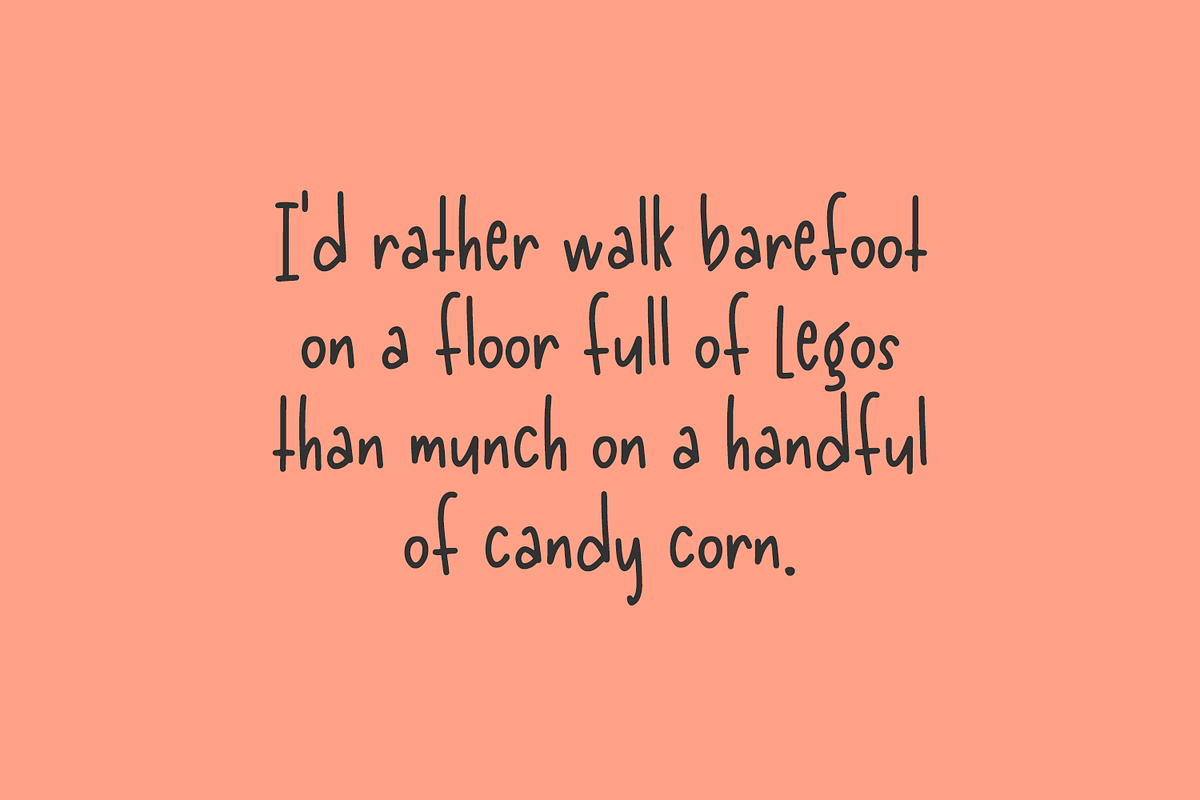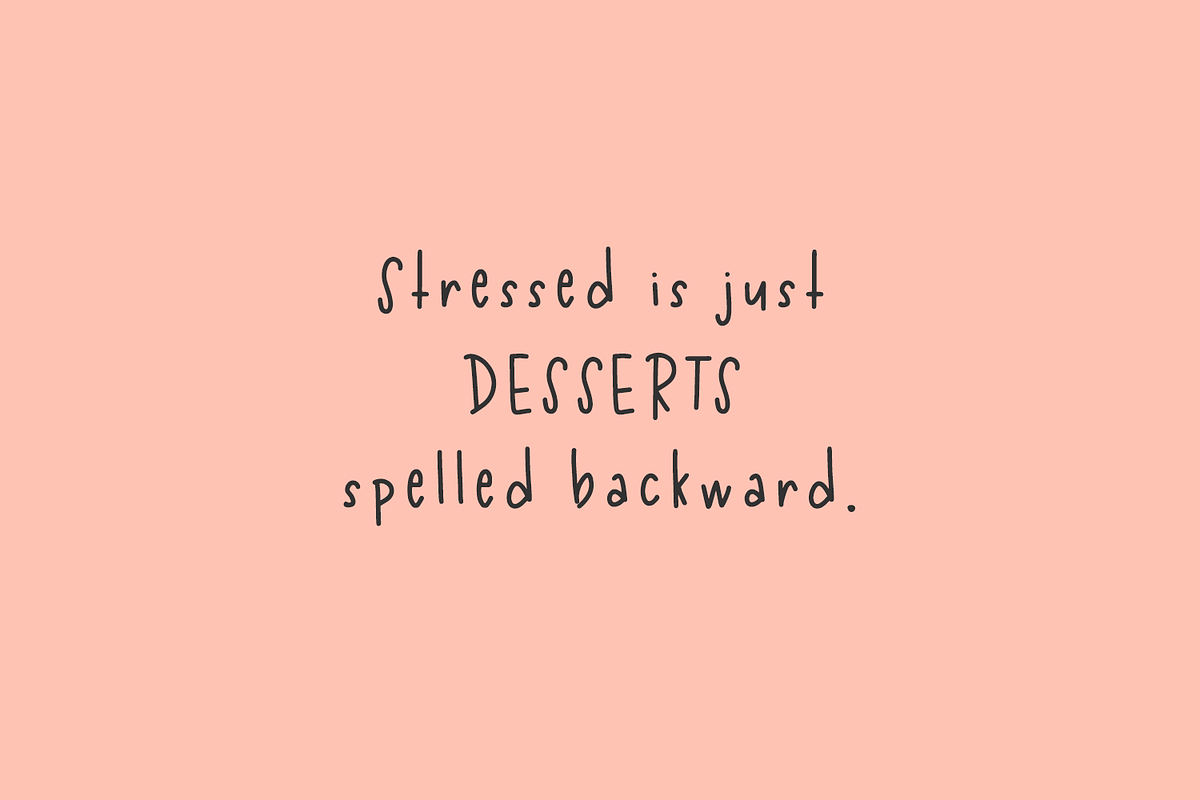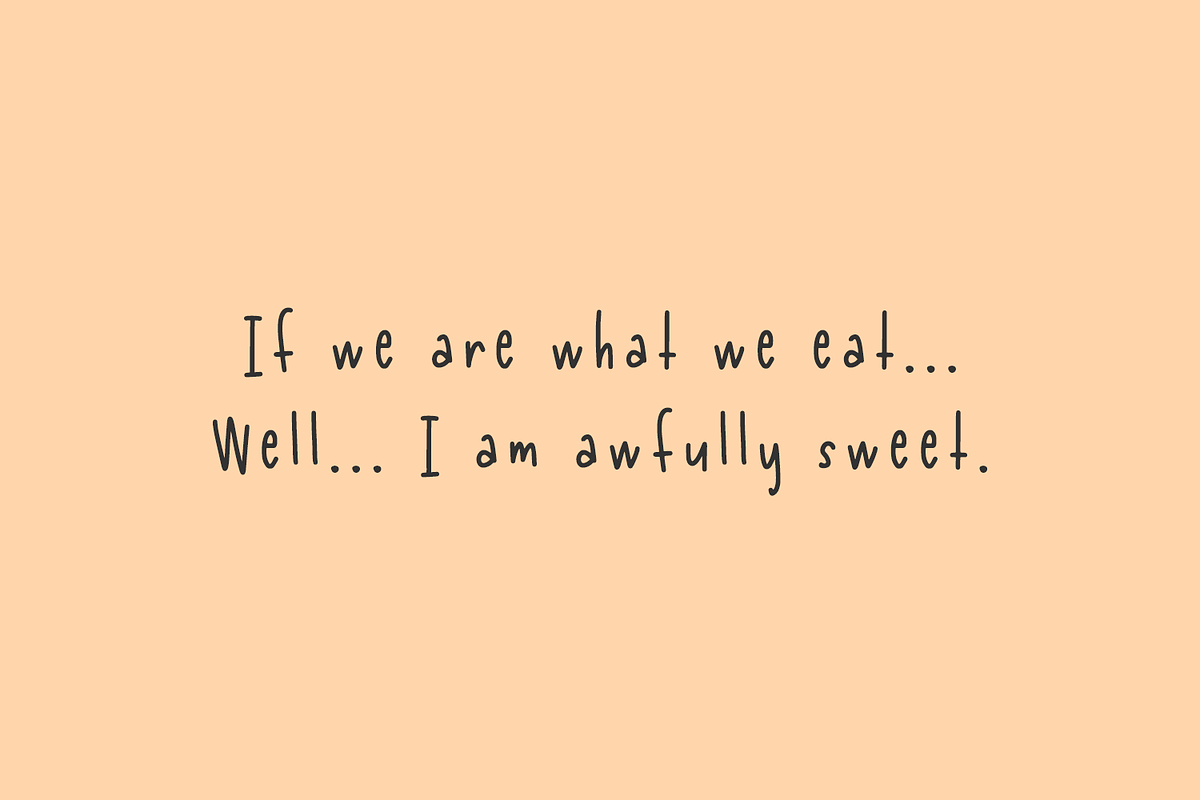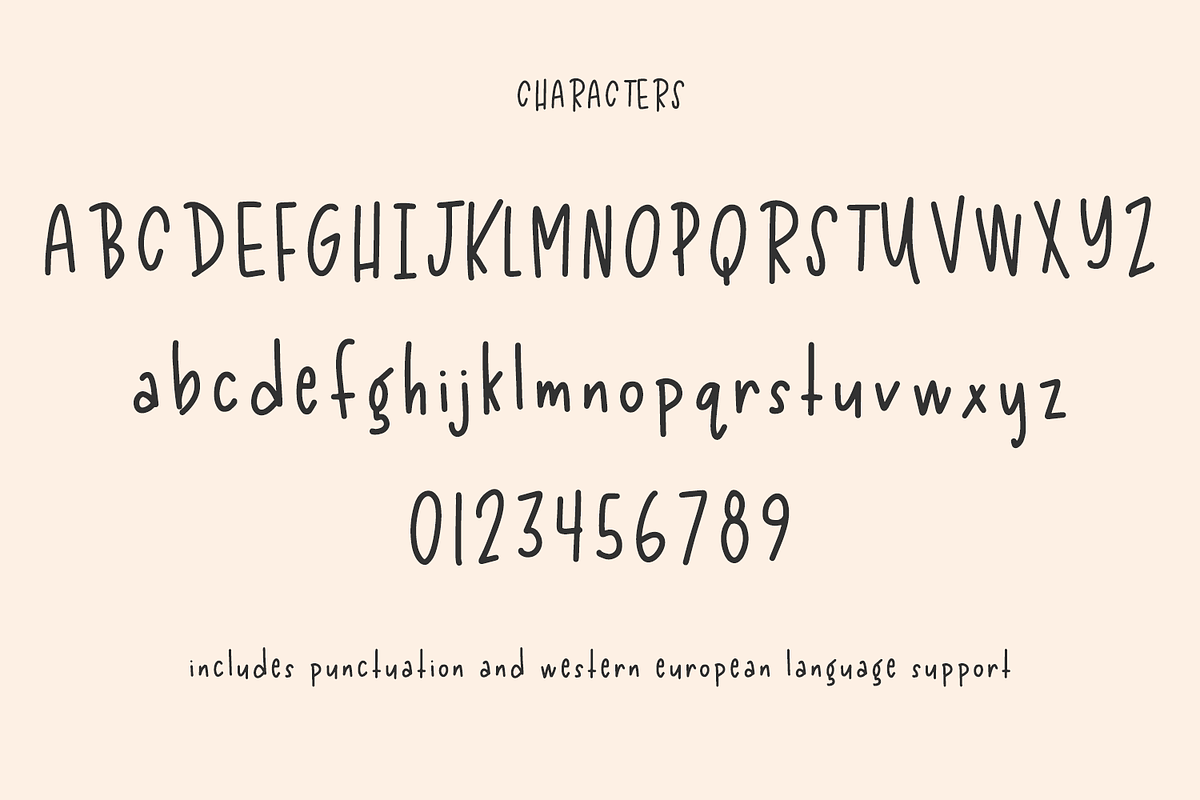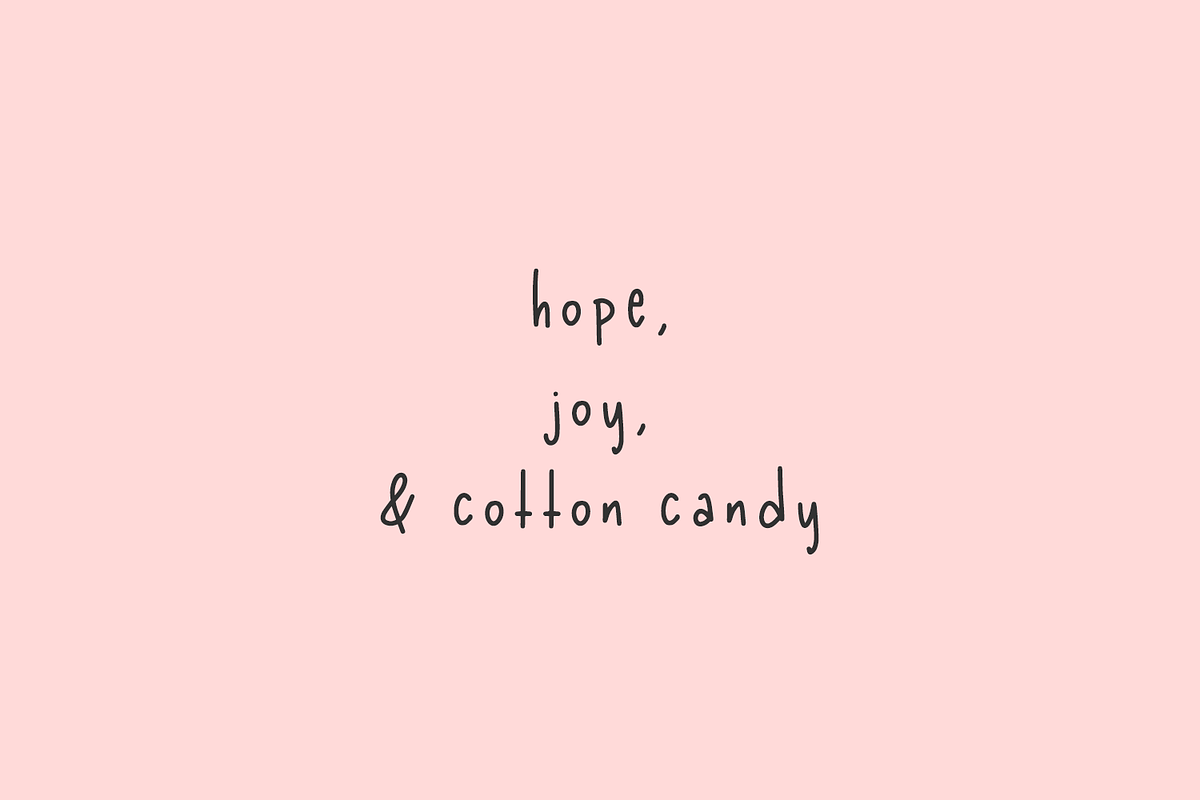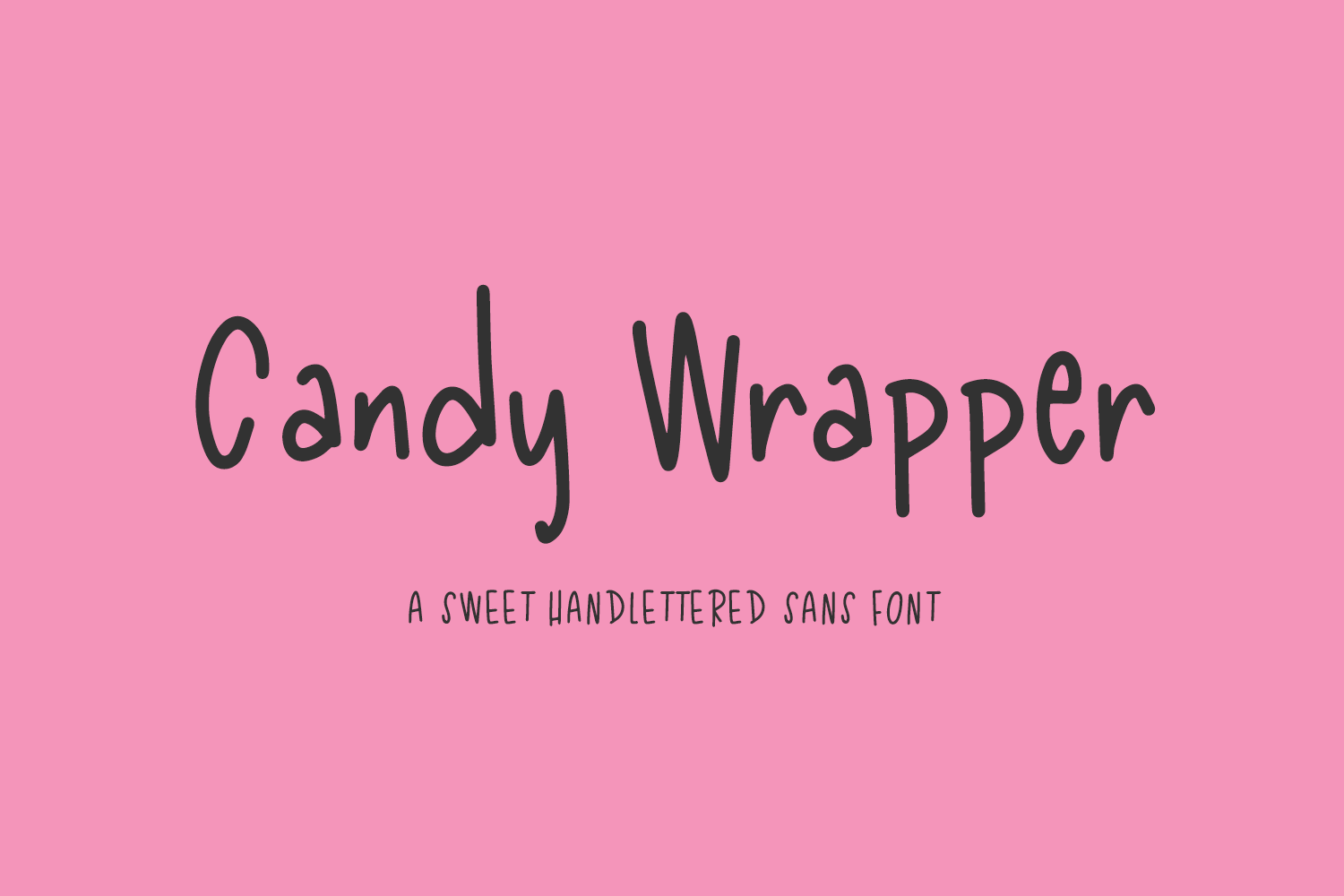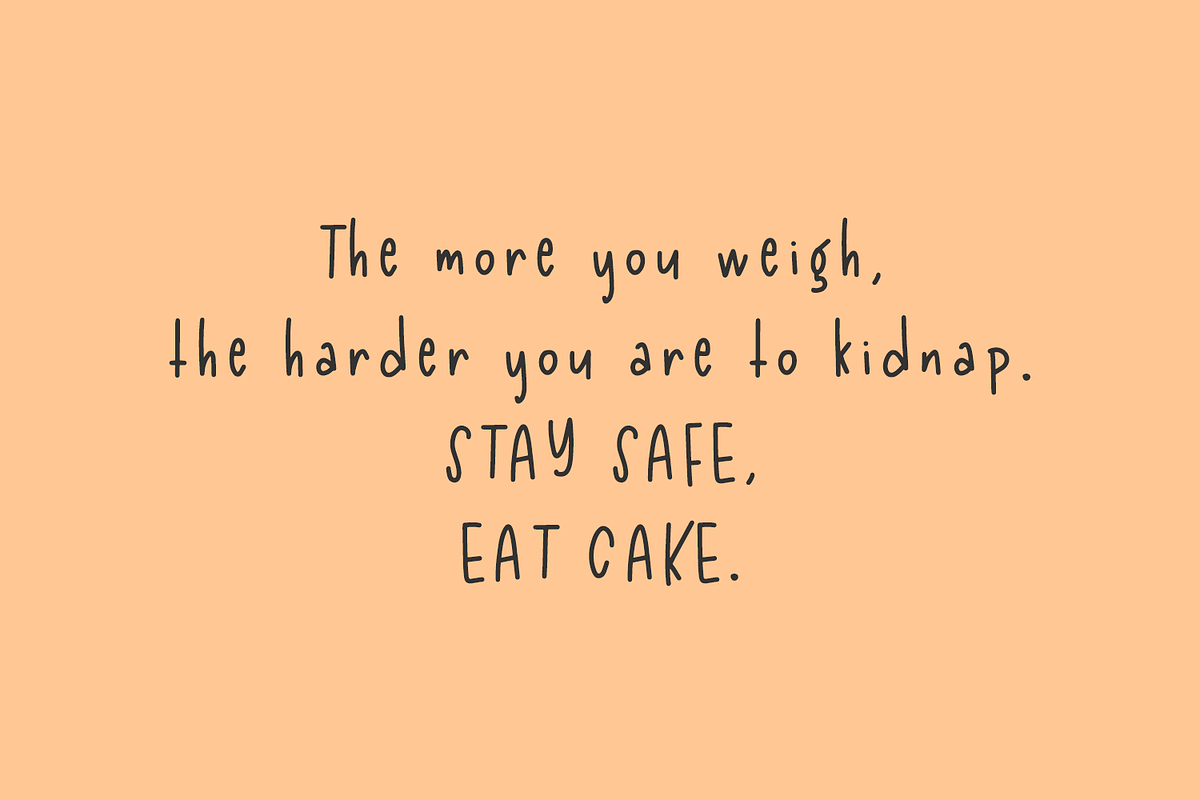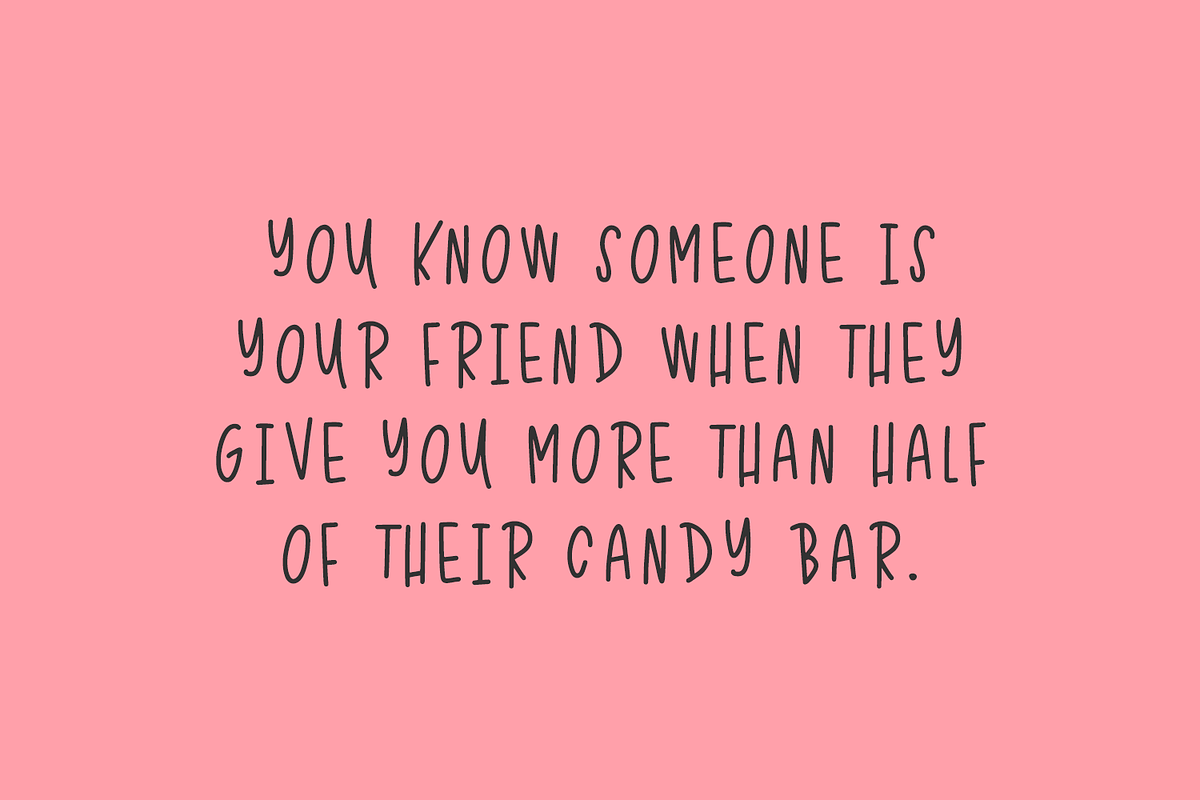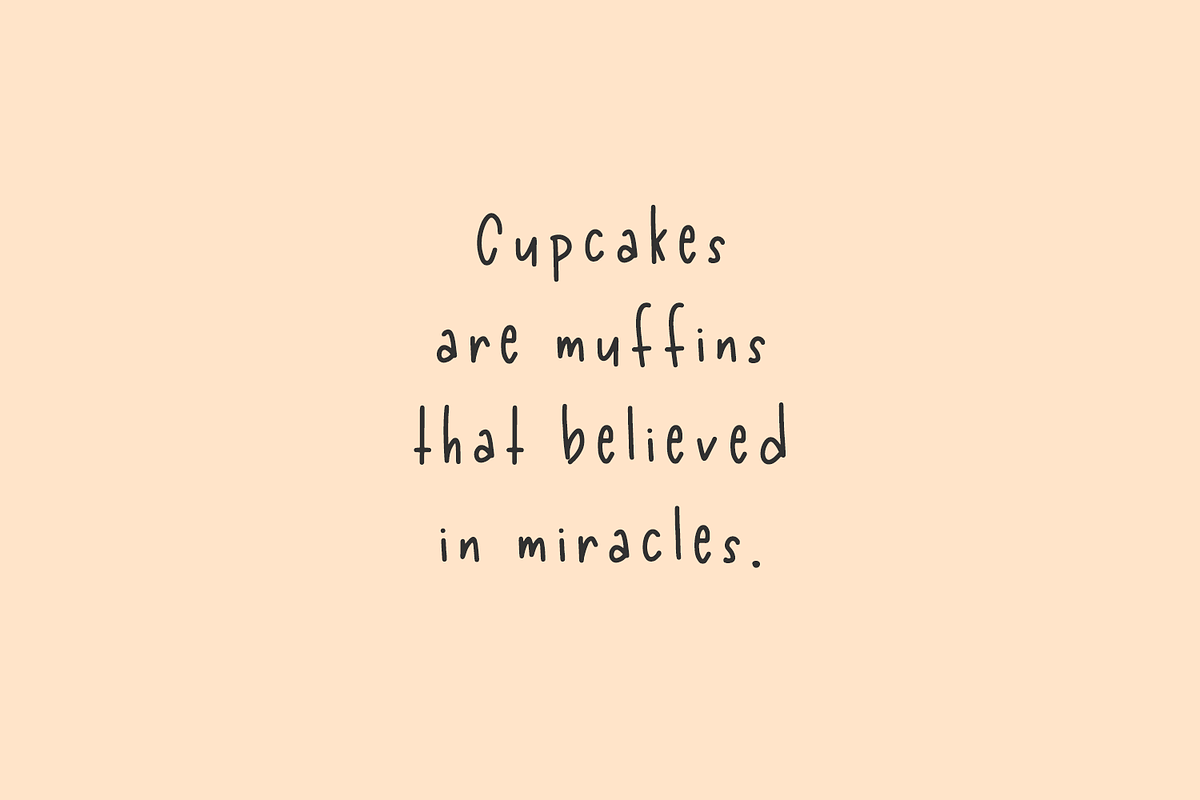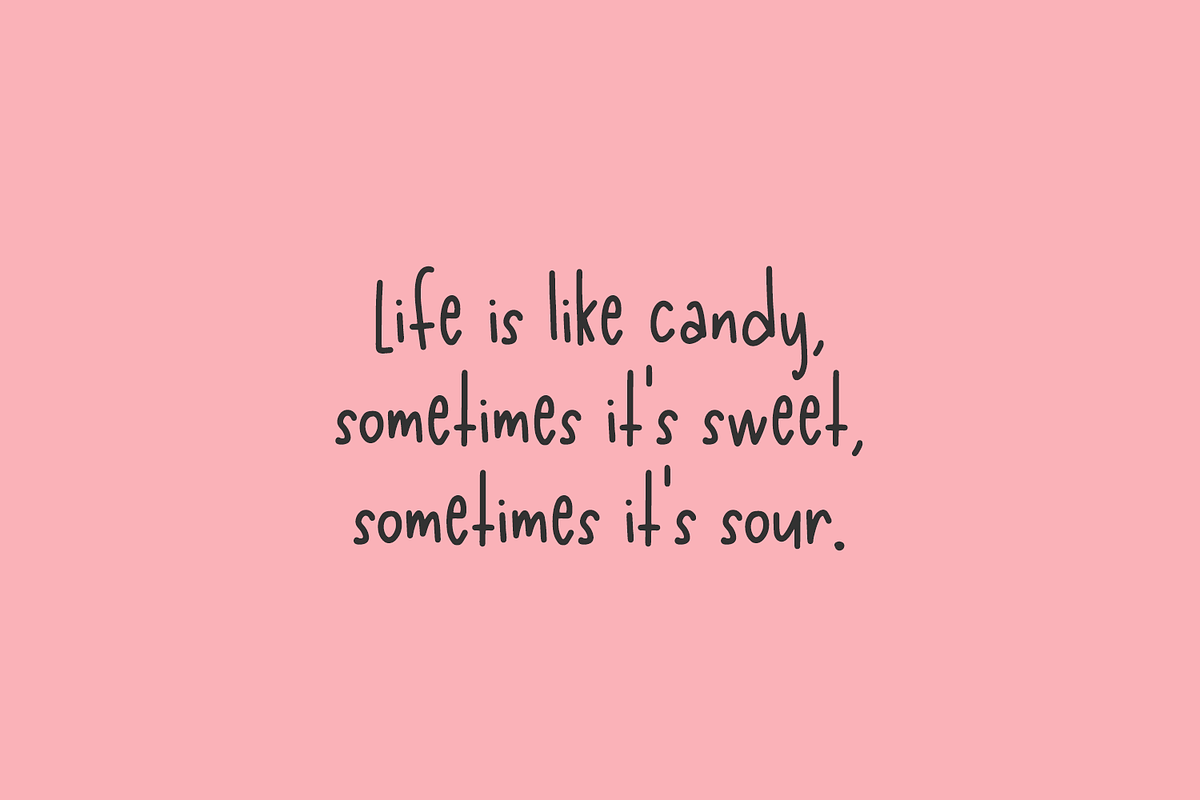
Candy Wrapper - A Handlettered Font
Meet Candy Wrapper Sans, a happy handlettered font. Candy Wrapper is playful, and features a smooth edge making it a great candidate for crafting & vinyl cutting projects! Use in all caps, all lowercase, or mixed to customize your look for your next project!
Candy Wrapper Sans is best for:
- crafting & vinyl cutting projects on your Cricut or Silhouette machine
- quote graphics for social media
- logos + branding
- classrooms & teachers, with a childlike handwritten touch
- header elements that need a fun look & feel
Candy Wrapper Sans includes:
- full upper + lowercase characters
- numbers + punctuation
- Western European Language Support